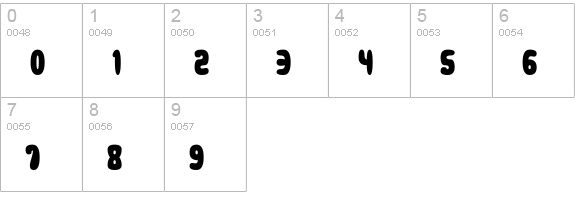
Squidgy Slimes Font Details
Squidgy Slimes is a donationware font in the Fancy > Comic category, designed by Darrell Flood. It has been downloaded 40 times and is available for Windows, Mac and Linux.
Introducing Squidgy Slimes font, a whimsical and playful typeface that is sure to bring a touch of fun to your designs. This font features a unique, squishy style that will add a quirky charm to any project. With its rounded edges and bouncy letterforms, Squidgy Slimes is perfect for creating eye-catching headlines, posters, invitations, and more.